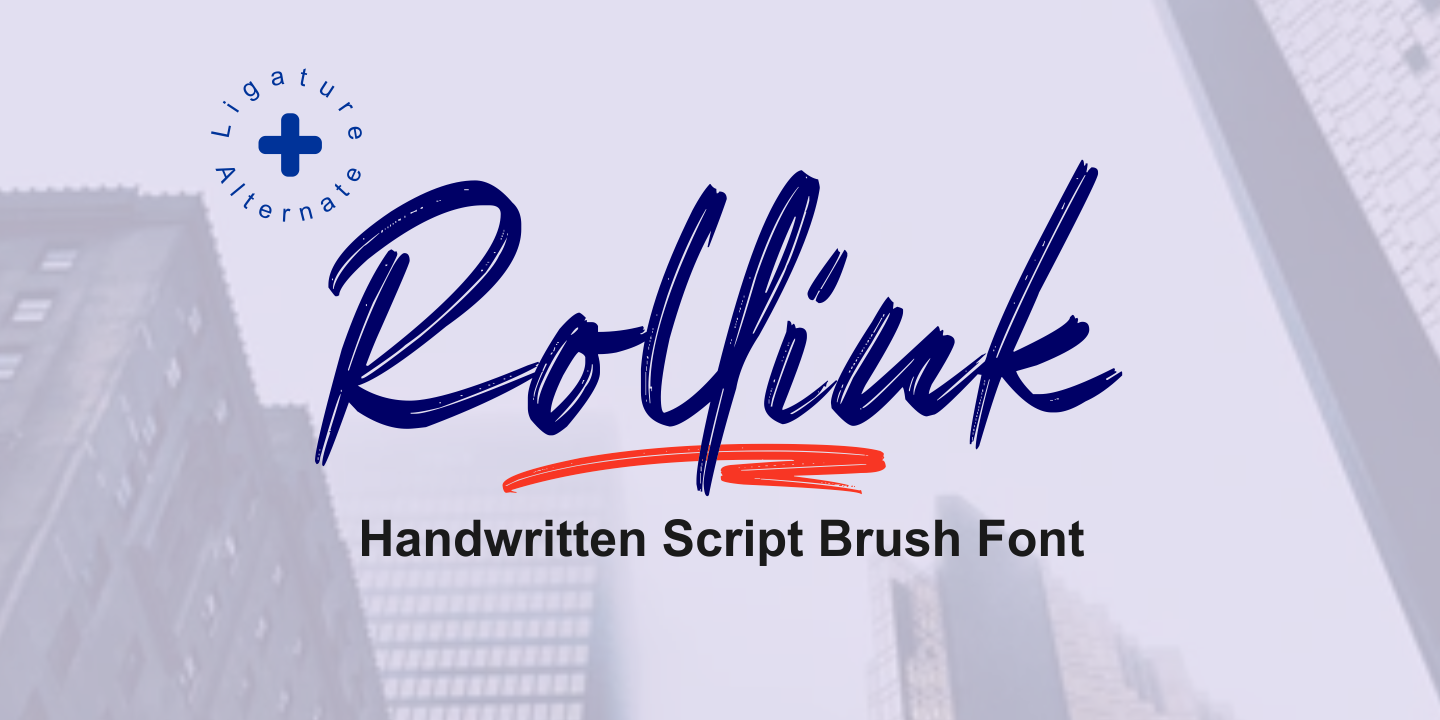
Rollink Font is perfect for travel luggage branding, mobility equipment marketing, transportation service communications, rolling suitcase advertising, travel gear retail signage, and dynamic movement-focused campaigns. Its mobile character makes it ideal for luggage manufacturers, travel accessory companies, transportation businesses, mobility aid providers, and any application requiring fluid typography that conveys smooth movement, effortless mobility, and the seamless functionality of rolling mechanisms and portable travel solutions.
Rollink Font is exciting because it embodies the smooth efficiency and effortless mobility of rolling movement through fluidly connected letterforms that reflect the seamless motion and practical functionality of well-designed rolling systems. Its rolling proportions and mobility-inspired details evoke the satisfying glide of quality wheels and the freedom that comes from effortless transportation, making it perfect for brands celebrating functional design and smooth mobility. The font's rolling character transforms communications into expressions of fluid movement and practical efficiency.
Rollink Font family includes mobility-ready weight variations typically featuring Light, Regular, Medium, and Bold options with connected styling that maintains rolling authenticity. The family often incorporates movement symbols, mobility elements, and transportation icons designed for travel and mobility applications, providing designers with comprehensive tools for creating authentic, movement-focused typographic compositions.
When selecting mobility and travel typography solutions, Rollink Font Free Download represents an exceptional choice for transportation and luggage projects. This fluid typeface brings instant mobility authenticity to any design, making it invaluable for travel companies, luggage brands, and transportation service providers celebrating smooth movement. Whether you're developing travel luggage branding, creating mobility equipment marketing materials, or designing transportation service communications, Rollink Font provides the smooth mobility and functional efficiency essential for rolling success in today's travel-focused mobility marketplace.